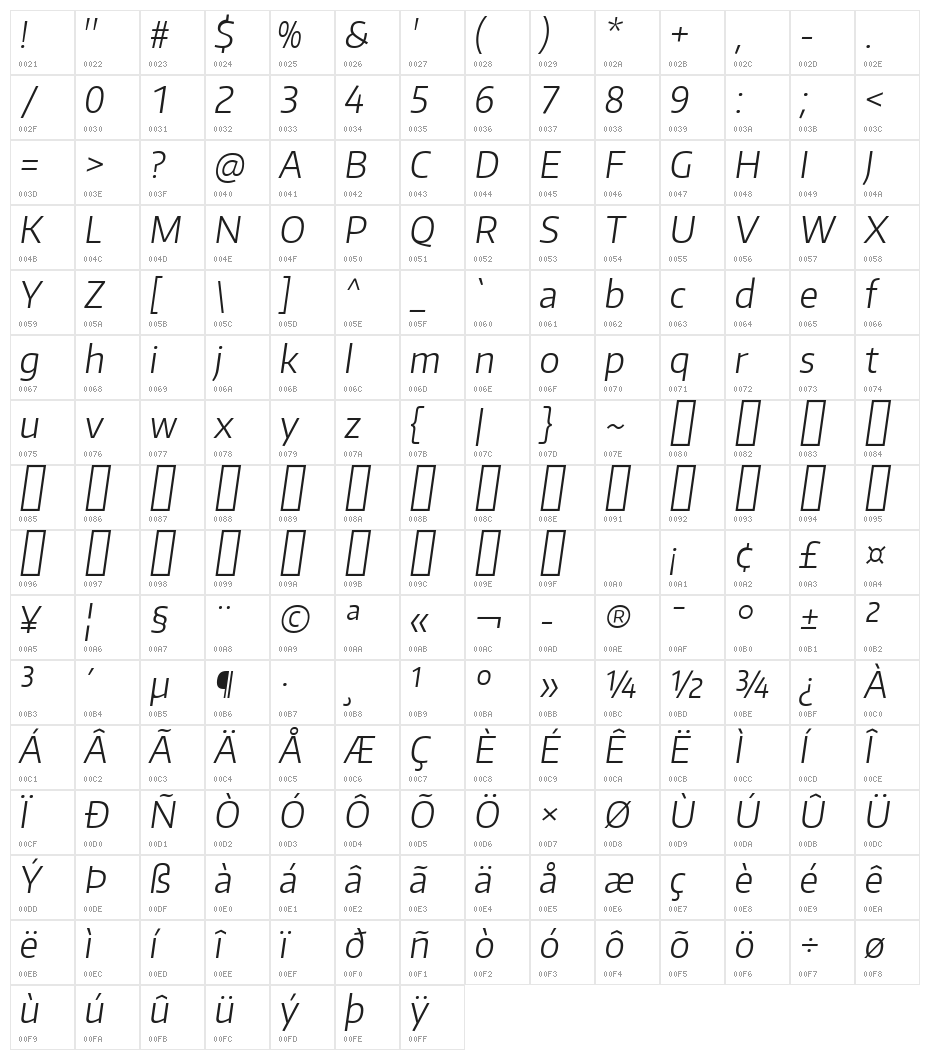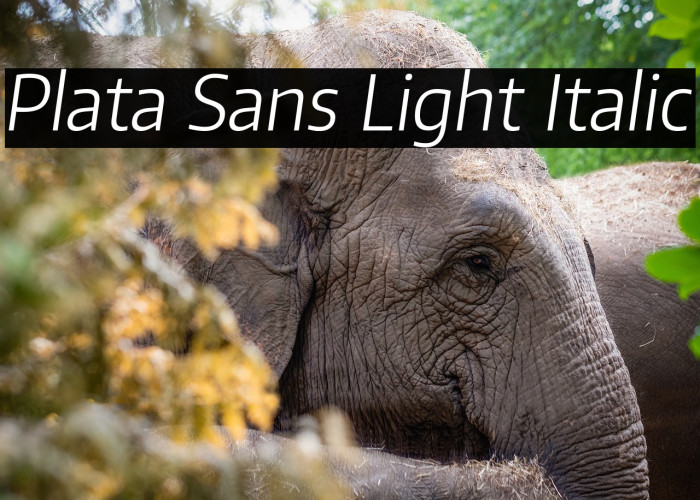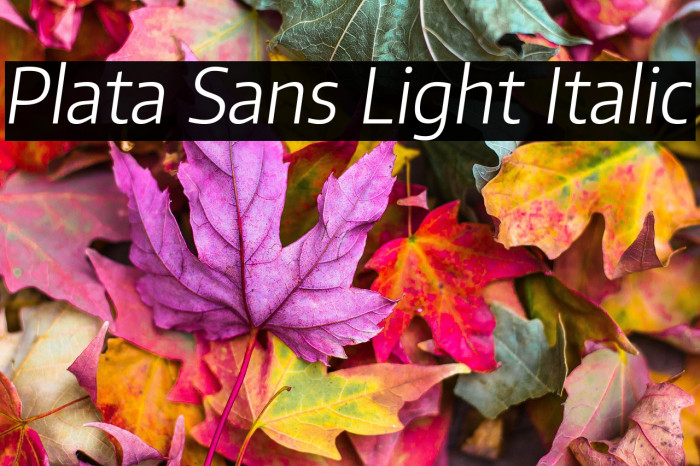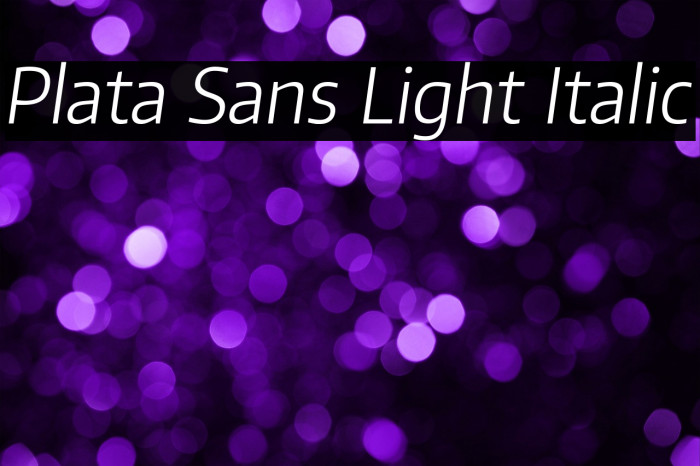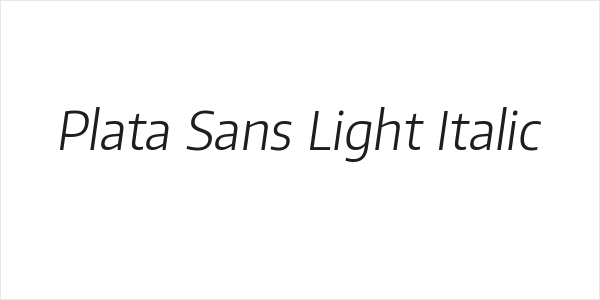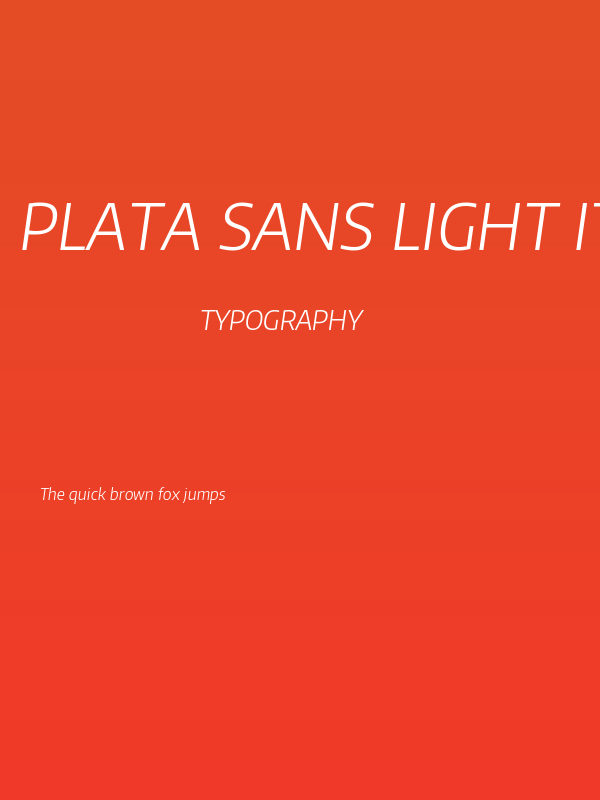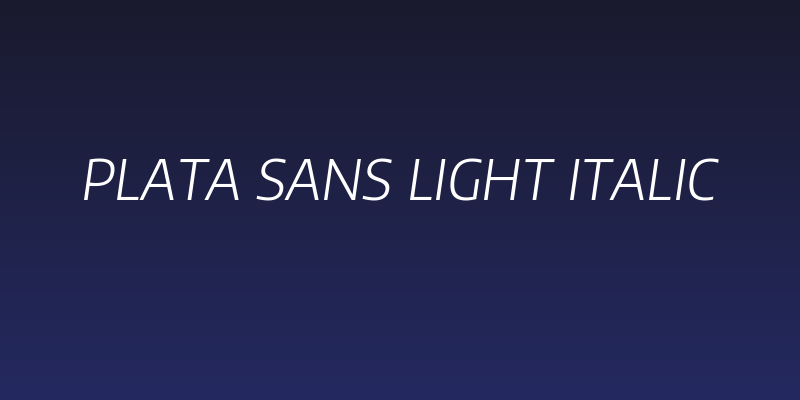
Plata Sans Light Italic Font
Plata Sans Light Italic Description
This font features a sleek and modern sans-serif design with a light weight and italic style. The characters are slightly condensed, giving it a streamlined appearance. The strokes are consistent with a low contrast, maintaining uniformity across all characters. Its clean and elegant form makes it suitable for contemporary design projects. The font's smooth curves and subtle slant add a touch of sophistication, making it versatile for various applications.
| Proposed Projects | Ideal for modern branding, digital interfaces, and editorial design where a clean and sophisticated look is desired. |